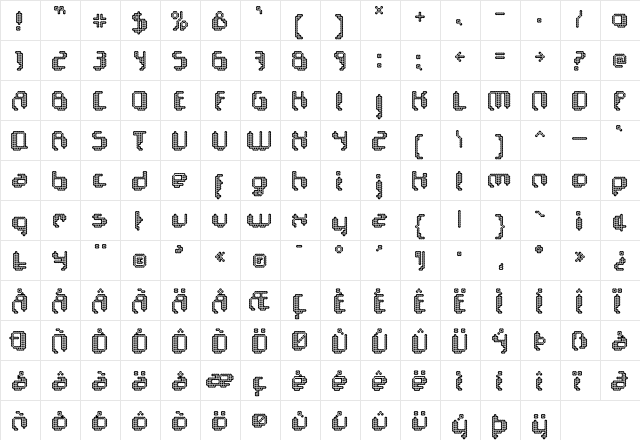
Chemo BubbleStroke
Design Context for Chemo Typeface
Chemo has an approachable, lighthearted character — its loose, expressive forms are well-suited to children's content, casual branding, and fun-first design.
Font Pairing: Pairs well with a rounded or humanist sans for body copy, maintaining the friendly tone without relying on Chemo to carry extended reading.
Pro Tip: Use Chemo at larger display sizes where its expressive character can land. Pair with a clean, simple sans for body copy to maintain readability.